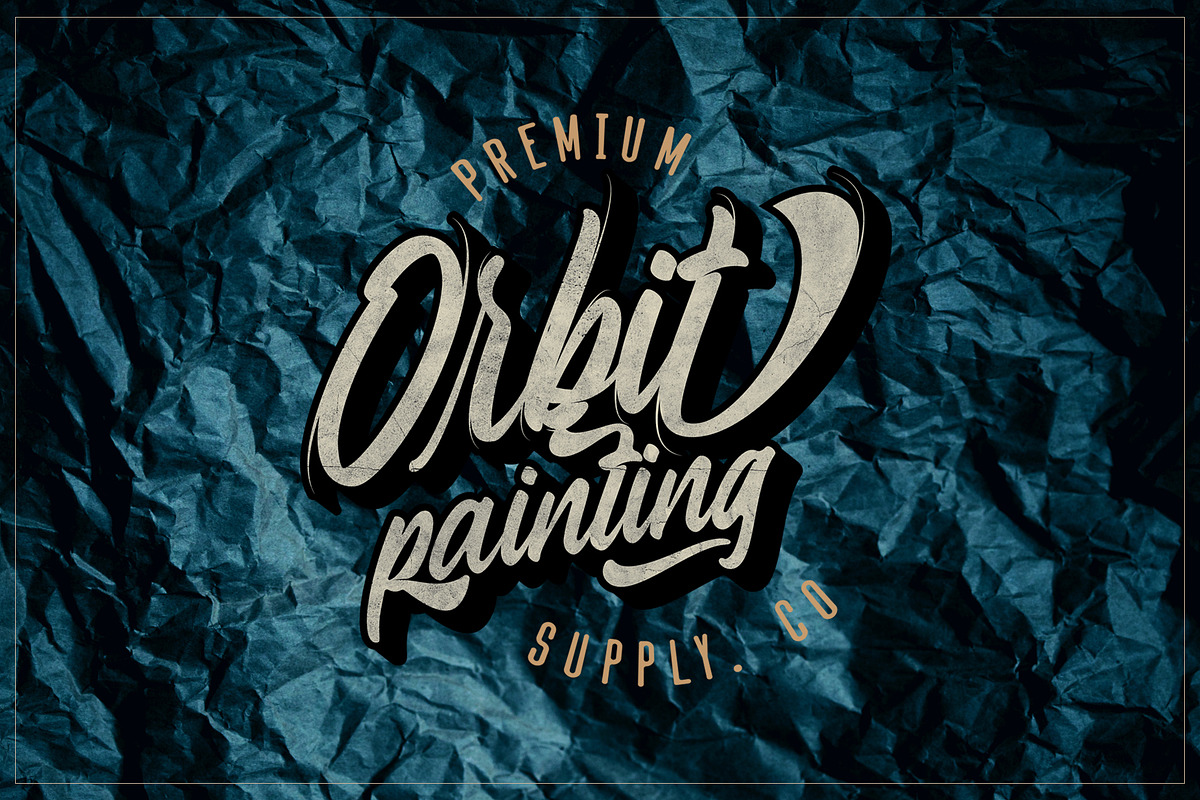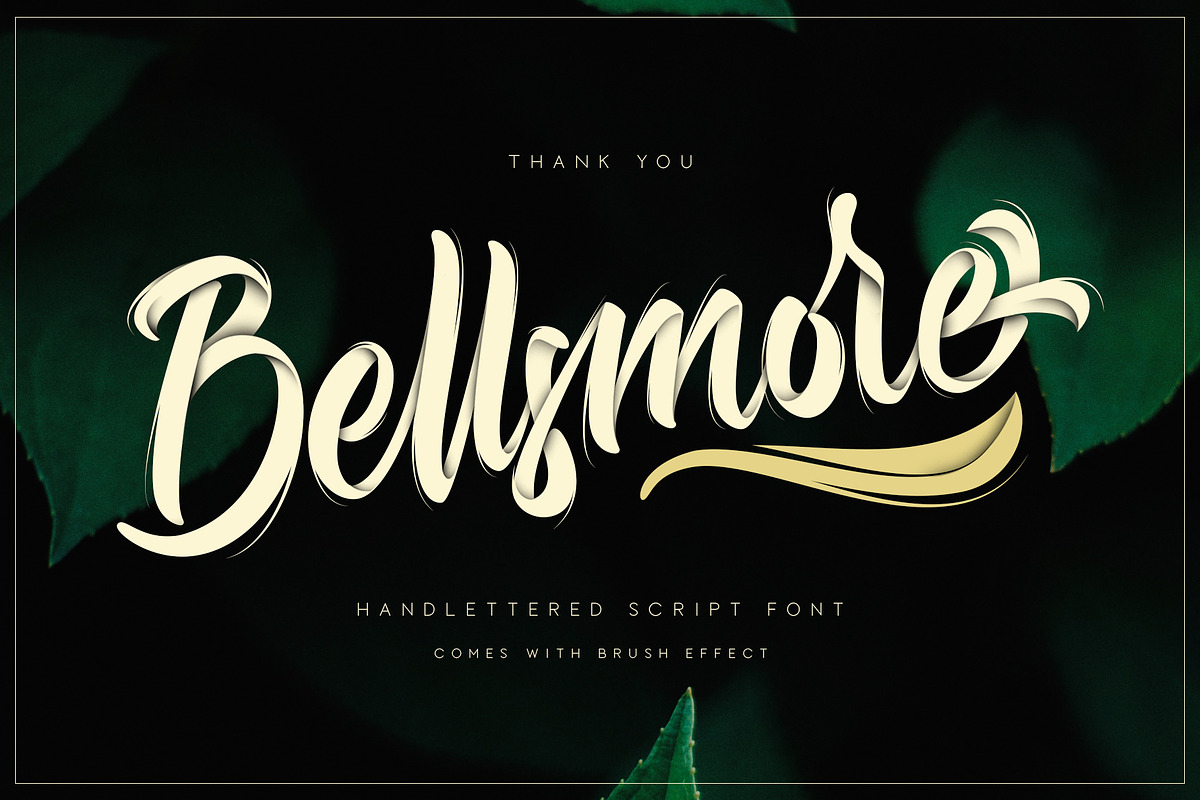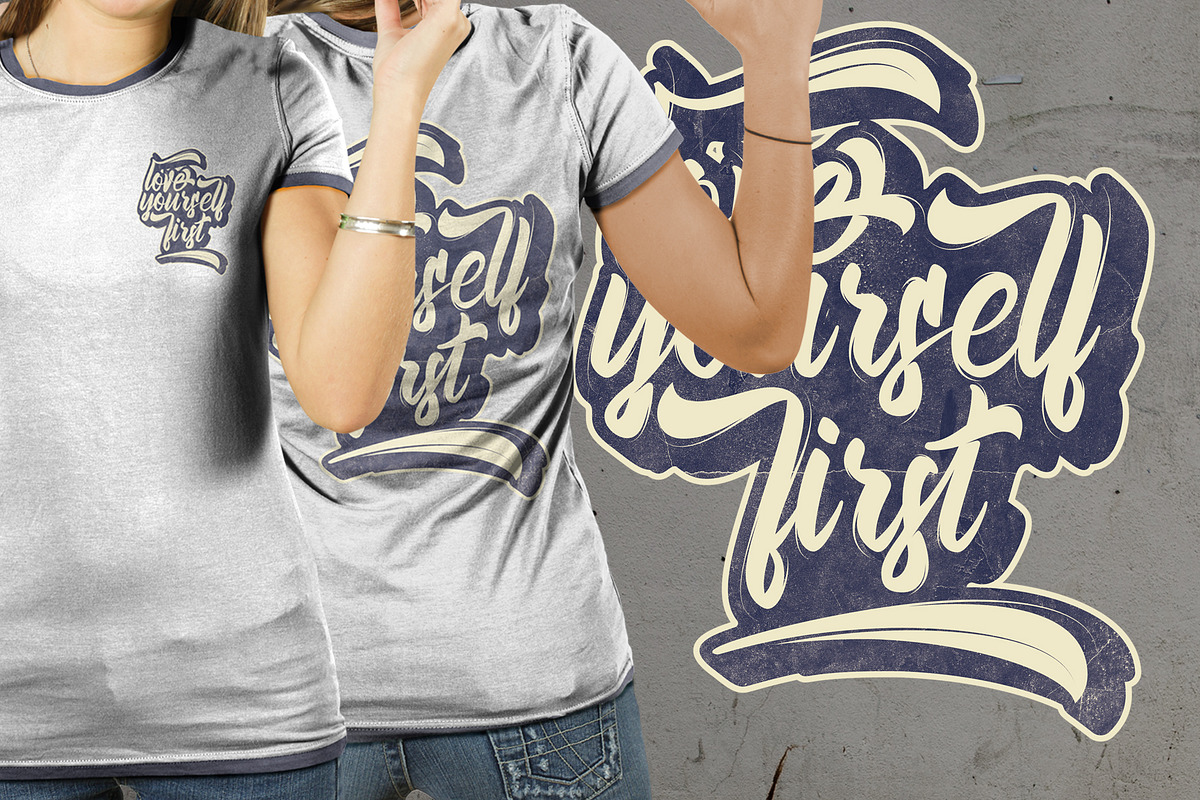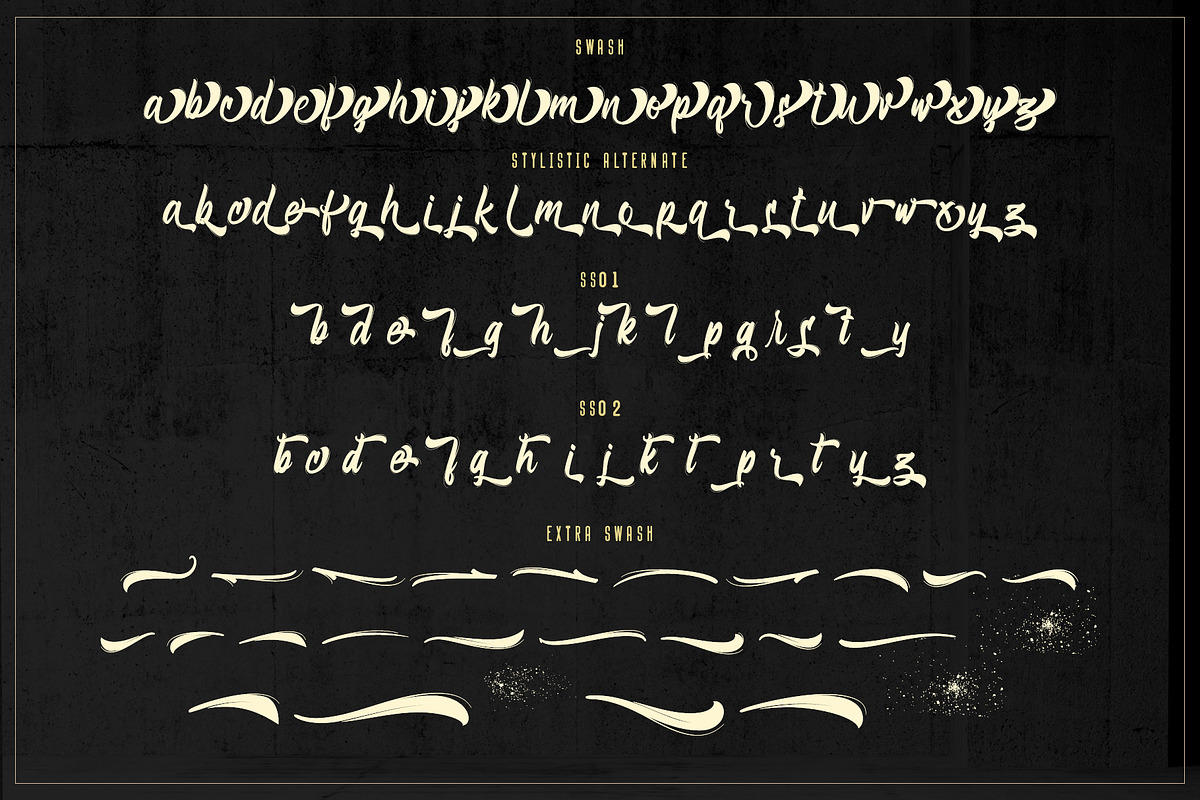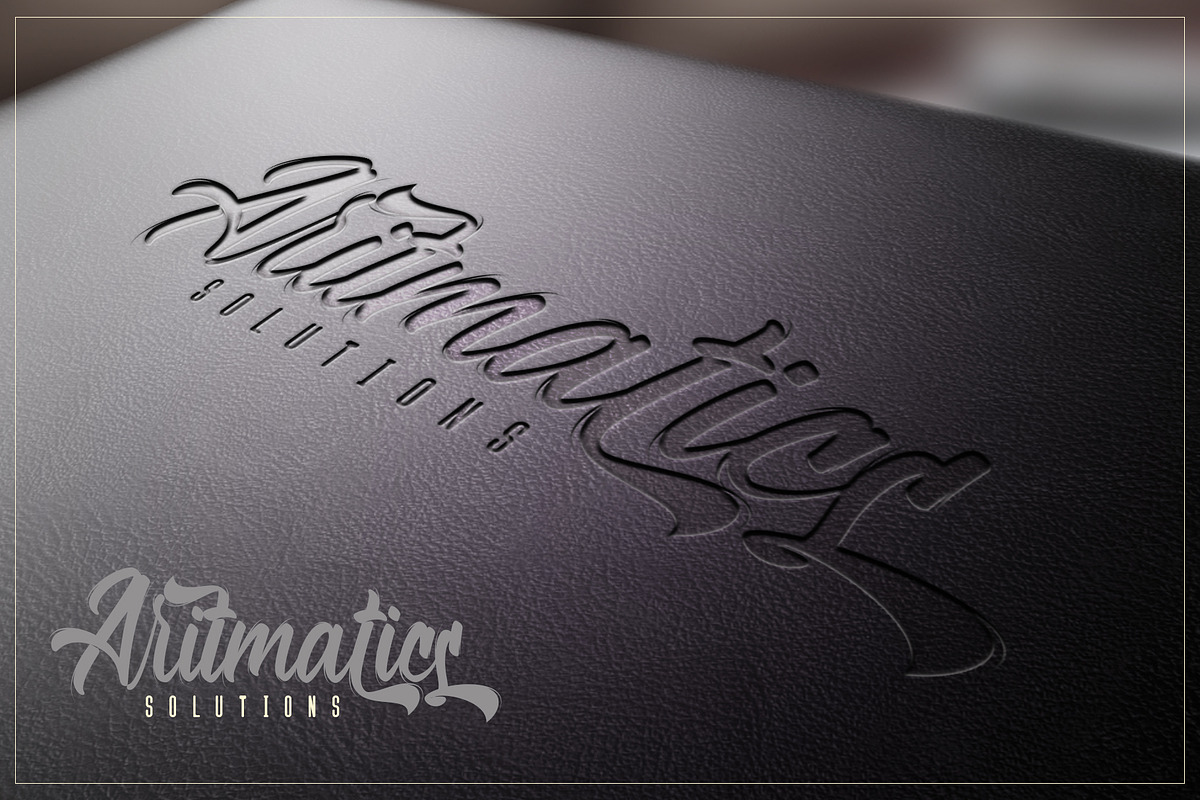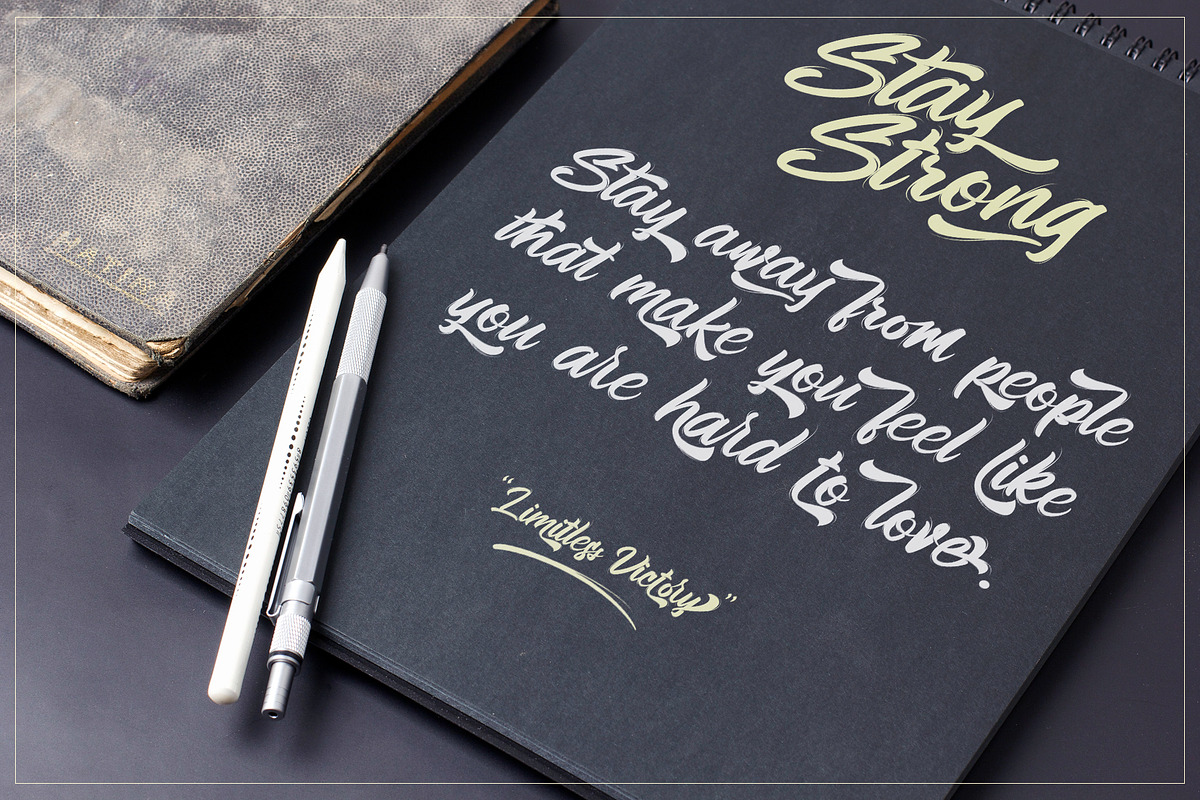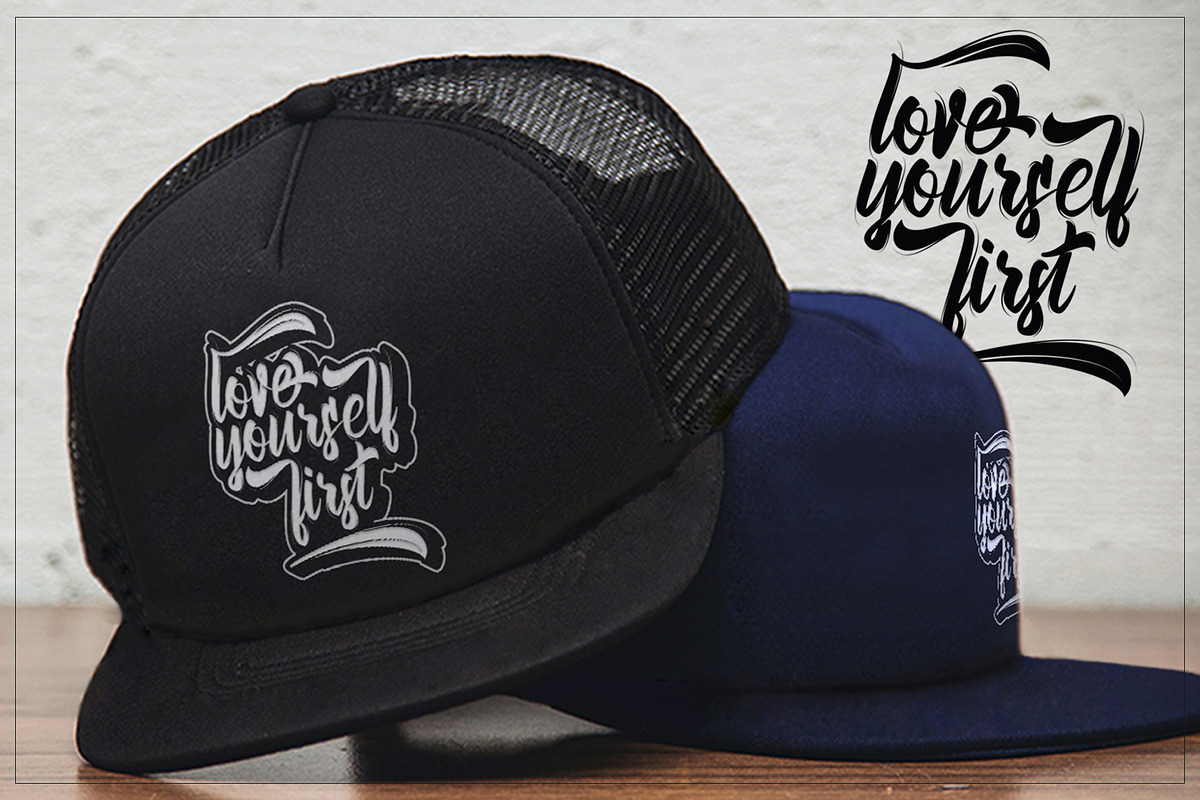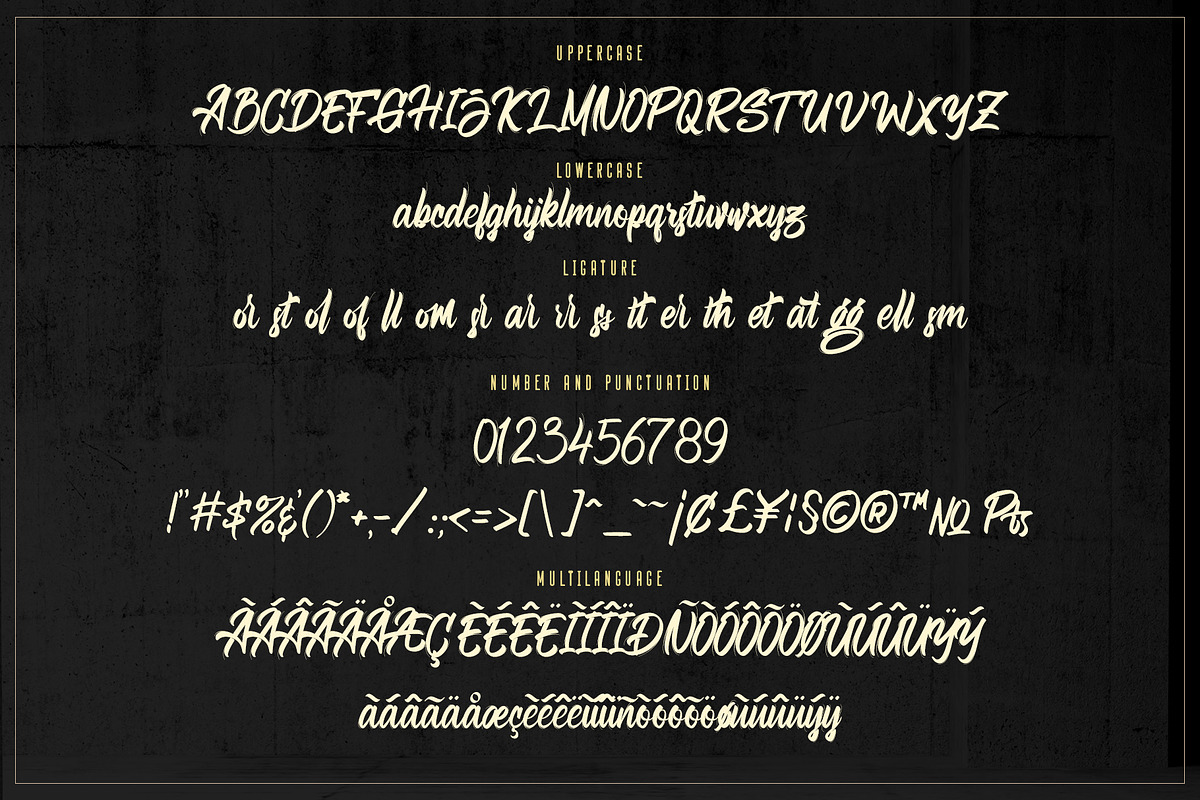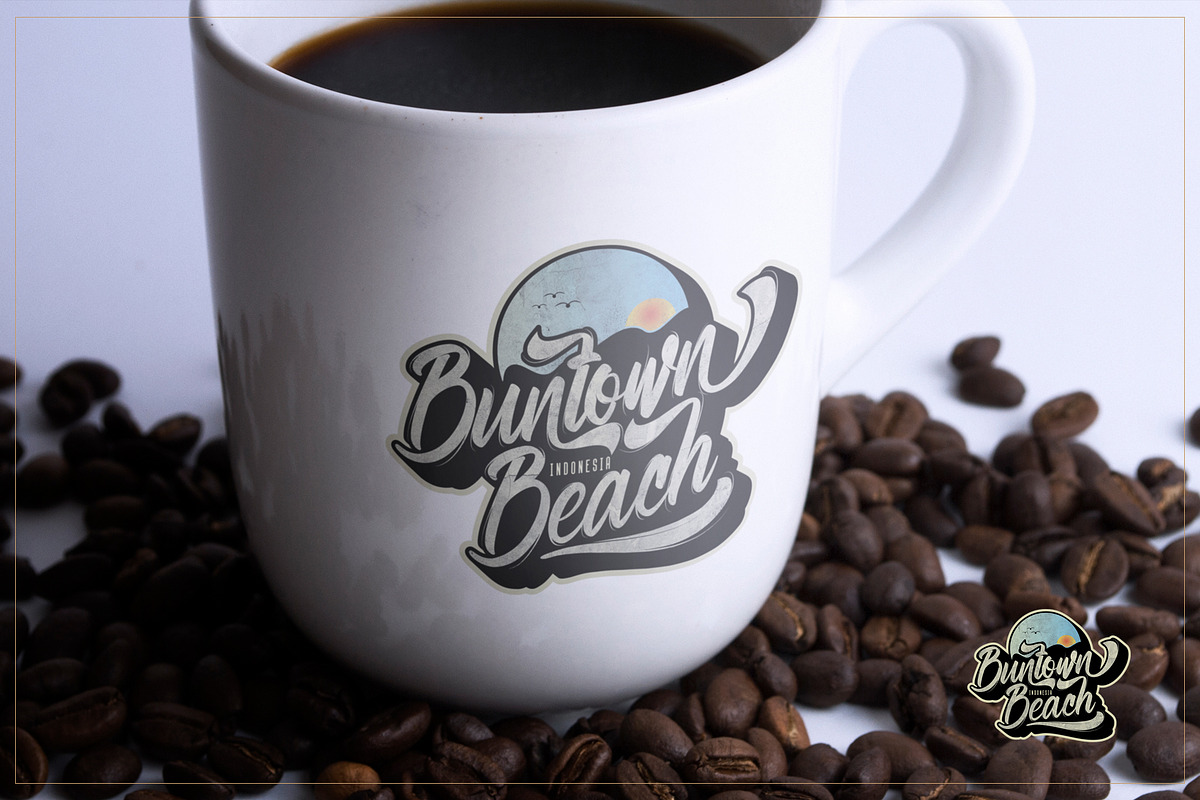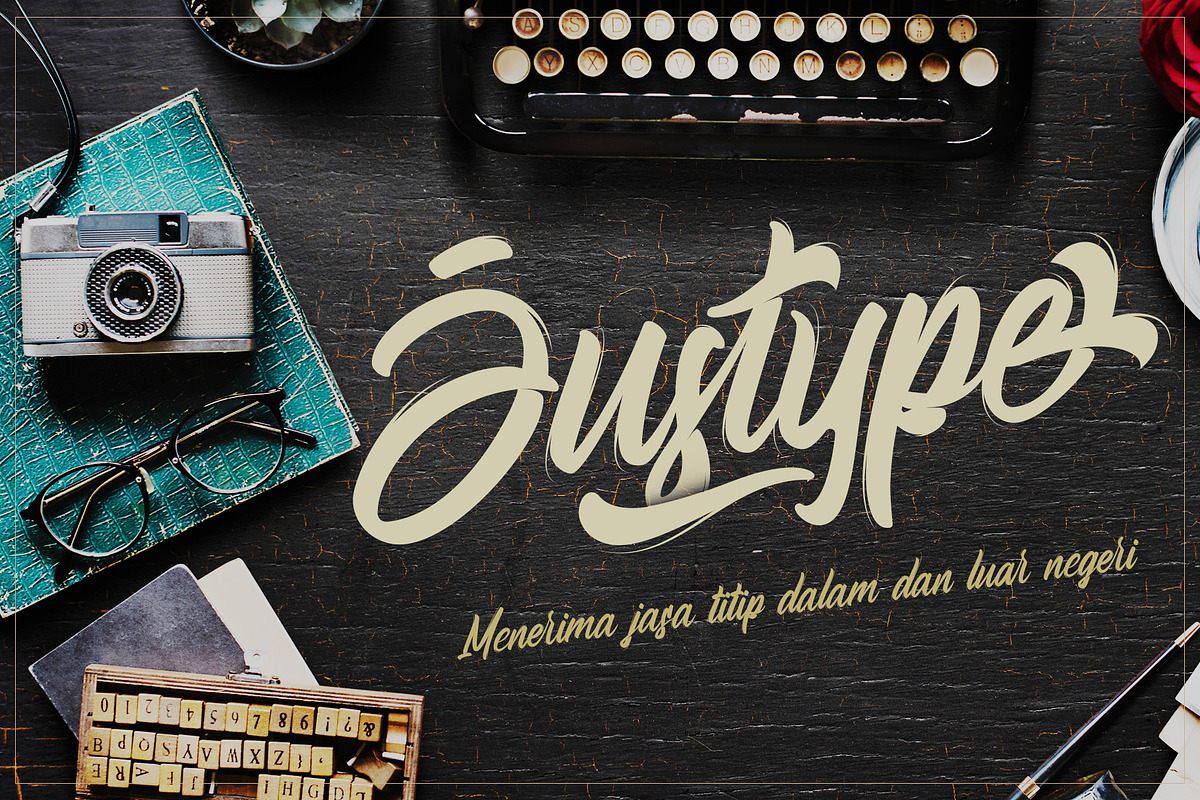
Bellsmore Brush Script
Bellsmore brush script is a font that contains more of alternate and some swashess. This fonts designed to complement each other in their use. Bellsmore brush script is perfect for logo design, t-shirts, flyers, apparel, packaging, advertising, wedding Invitation etc. This typeface contain of Uppercase, Lowercase, Alternate, Number, Symbol, Punctuation, Ligature and bonus swashes. Also support multilingual and already PUA encoded.
Note : Bellsmore Brush Script is not an SVG font, shading effect on the cover preview is only a manually created.